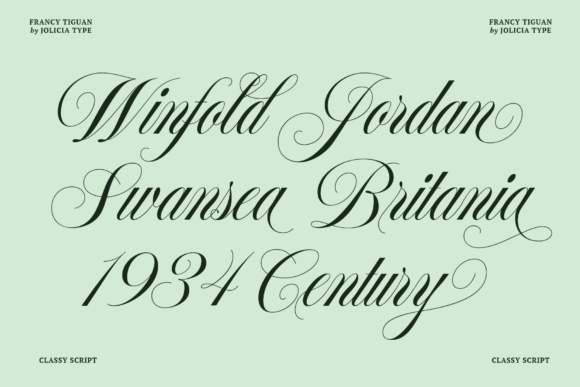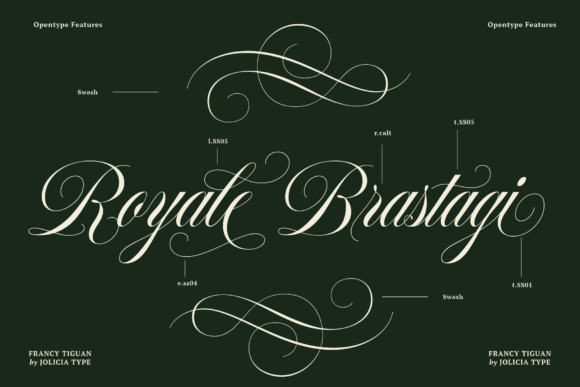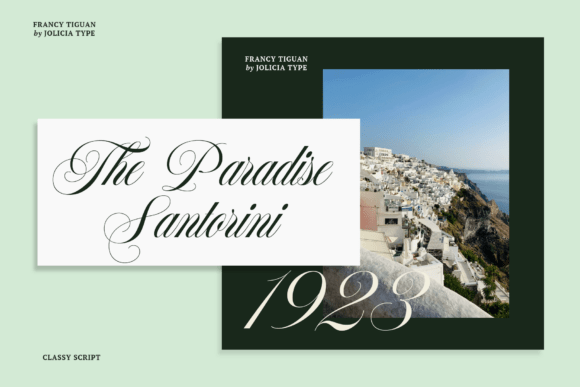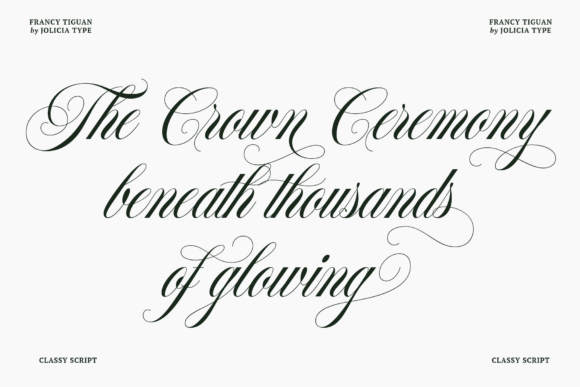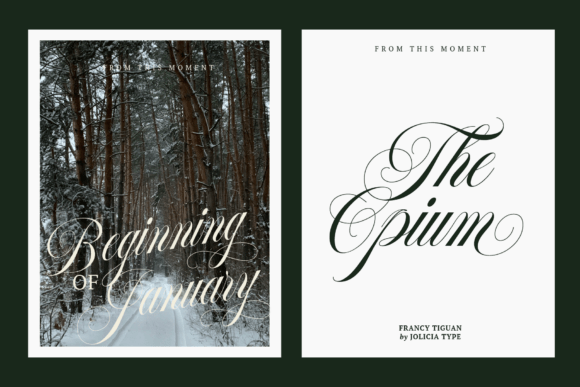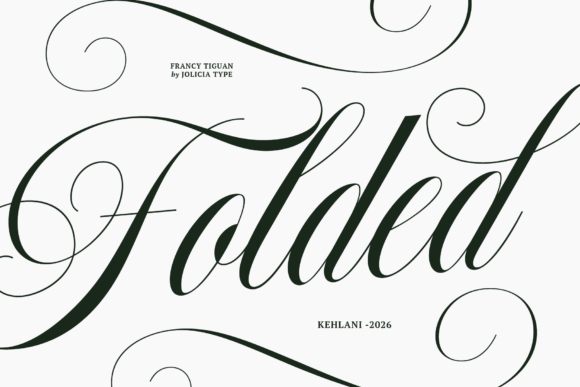
Introduction to Francy Tiguan Font
Francy Tiguan is a classy script font that combines elegant calligraphy with modern luxury aesthetics.
Designed with flowing swashes, graceful curves, and refined letterforms, this font delivers a sophisticated and romantic impression perfect for premium branding Its stylish handwritten look makes Francy Tiguan ideal for wedding invitations, feminine logos, fashion branding, beauty packaging, social media quotes, editorial design, and luxury typography projects.
Key Features of Francy Tiguan Font
Why Choose Francy Tiguan Font?
Francy Tiguan Font offers exceptional quality and versatility, making it a valuable addition to your design toolkit. Whether you’re creating for personal projects or commercial use, Francy Tiguan Font delivers professional results.